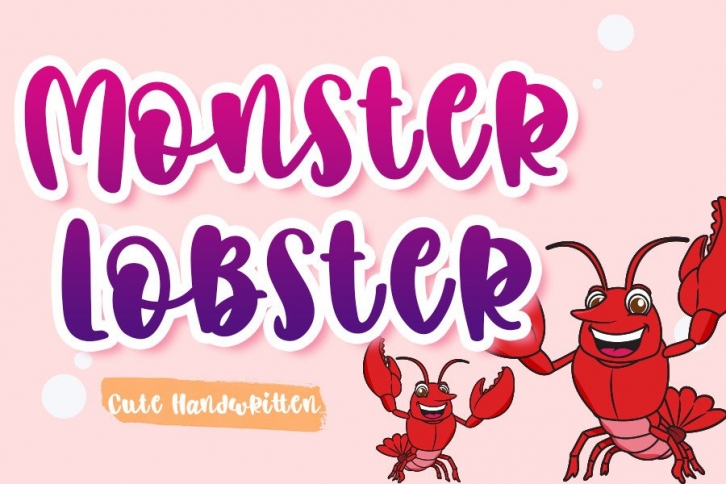
Monster Lobster is an incredibly unique and quirky handwritten font. Masterfully designed to become a true favorite, this font has the potential to bring each of your creative ideas to the highest level!